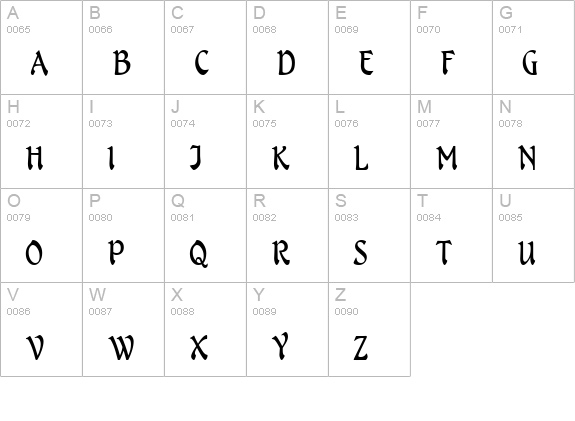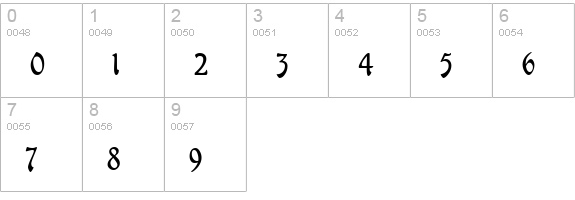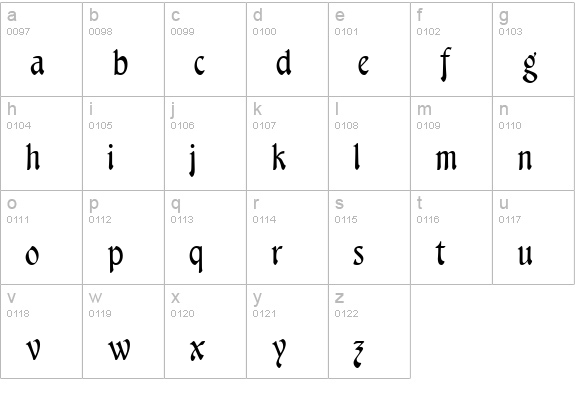
Menuetto font is a stylish and versatile typeface that exudes elegance and sophistication. Its sleek lines and modern aesthetic make it suitable for a wide range of design projects, from branding to editorial design. With its clean and crisp appearance, Menuetto font adds a touch of class to any project it is used in. What's even better is that Menuetto font is available for free download at FontsMarket.com. This means that you can easily access this beautiful typeface without any cost involved. Whether you are a designer looking for a new font to add to your collection or a business owner in need of a professional typeface for your marketing materials, Menuetto font is the perfect choice. Download it today and elevate your designs with this stunning and sophisticated font.